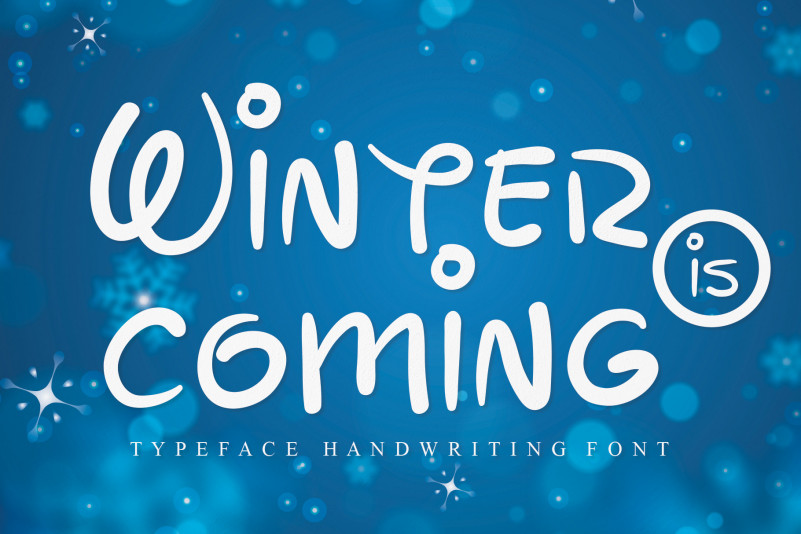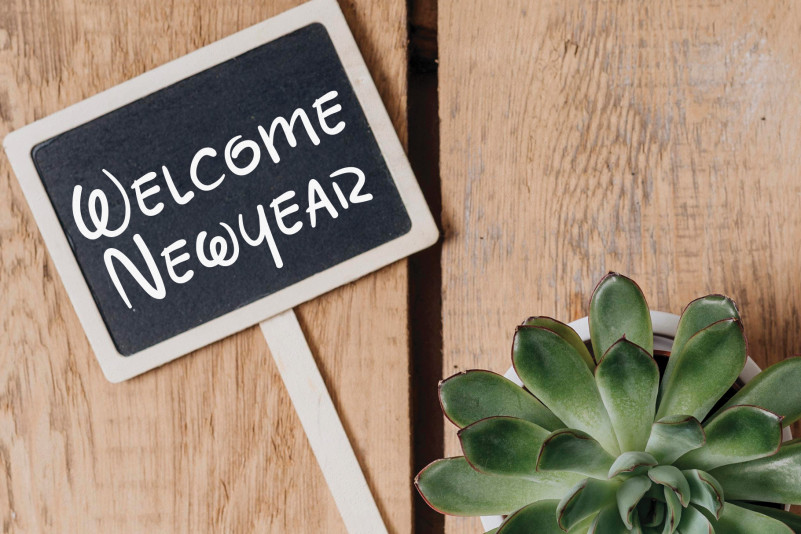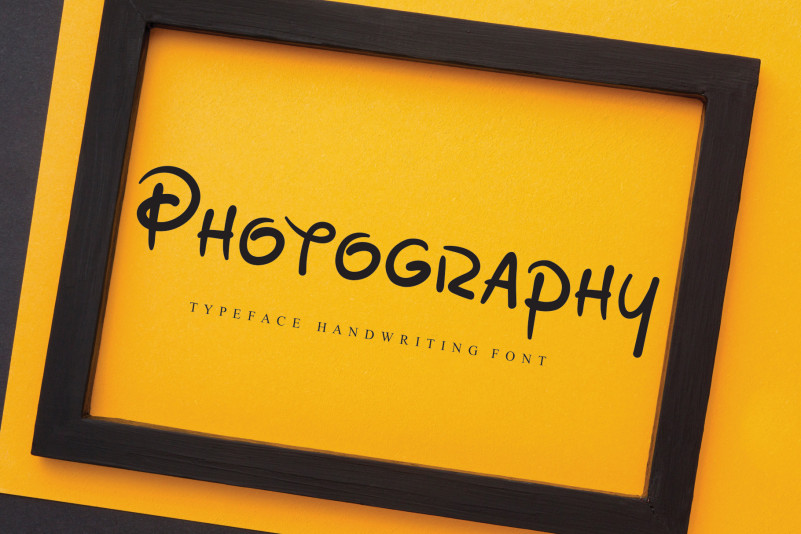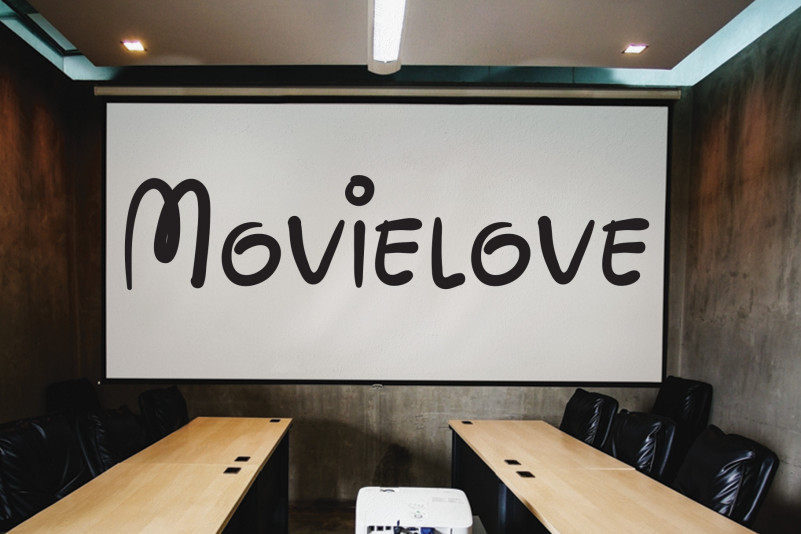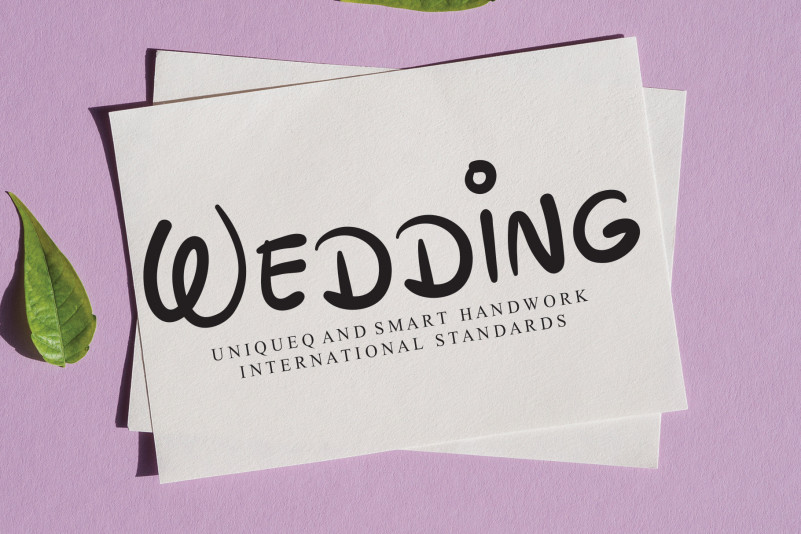
Winter is coming Script Font
Winter is coming Script Font is a fun handwritten font with a unique style. Add it to your most creative ideas and notice how it makes them come alive!